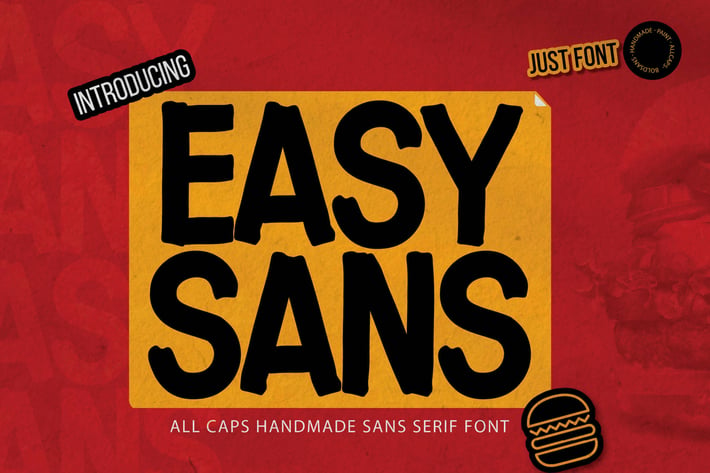
Easysans - All Caps Handmade Sans Serif Font
Introducing Easysans is a All Caps Handmade Sans Serif Font. Textured Sans Serif Font that is written casually and quickly.
Letters are made with brushes on Procreate. Then crafted carefully drawn into vector format.
That is why Easysans has charming, authentic and relaxed characteristic more natural look to your text with a more natural look to your text.It also has many alternatives and underlines that make your text and design more interesting. Easysans is perfect for homeware designs,branding projects, Logo design, Quotes product packaging